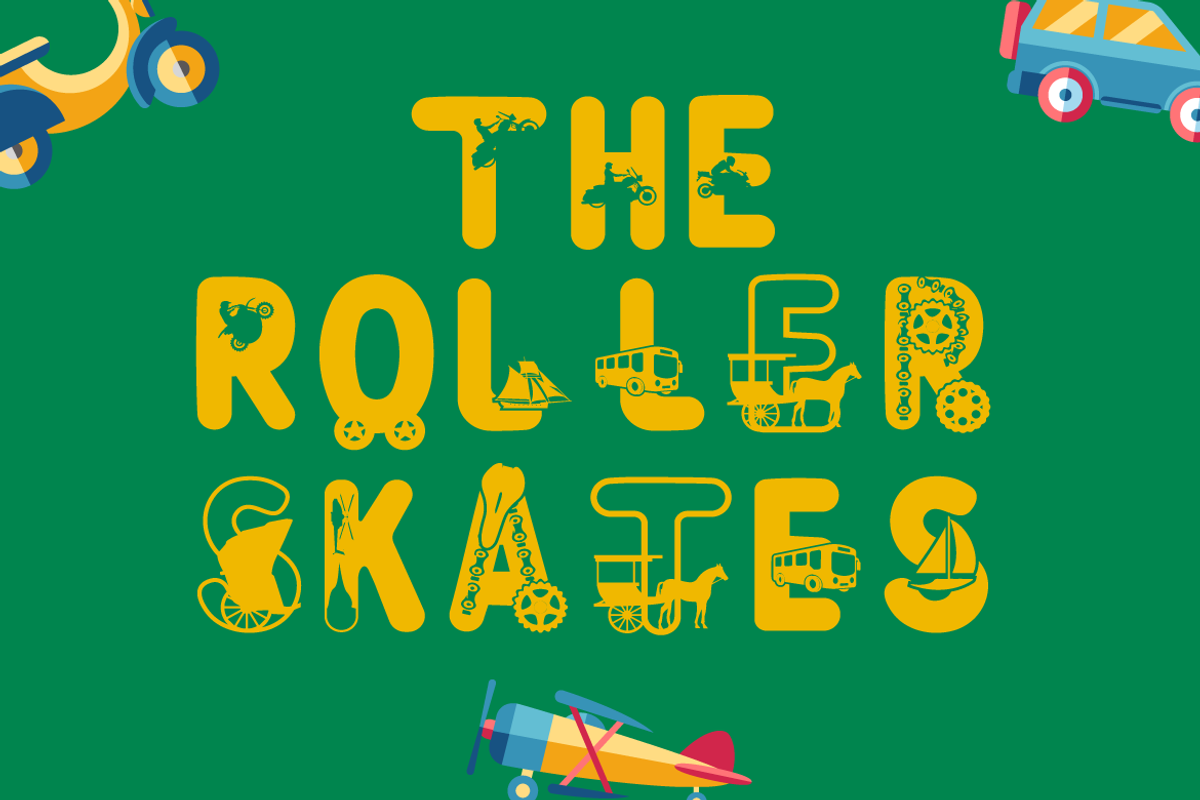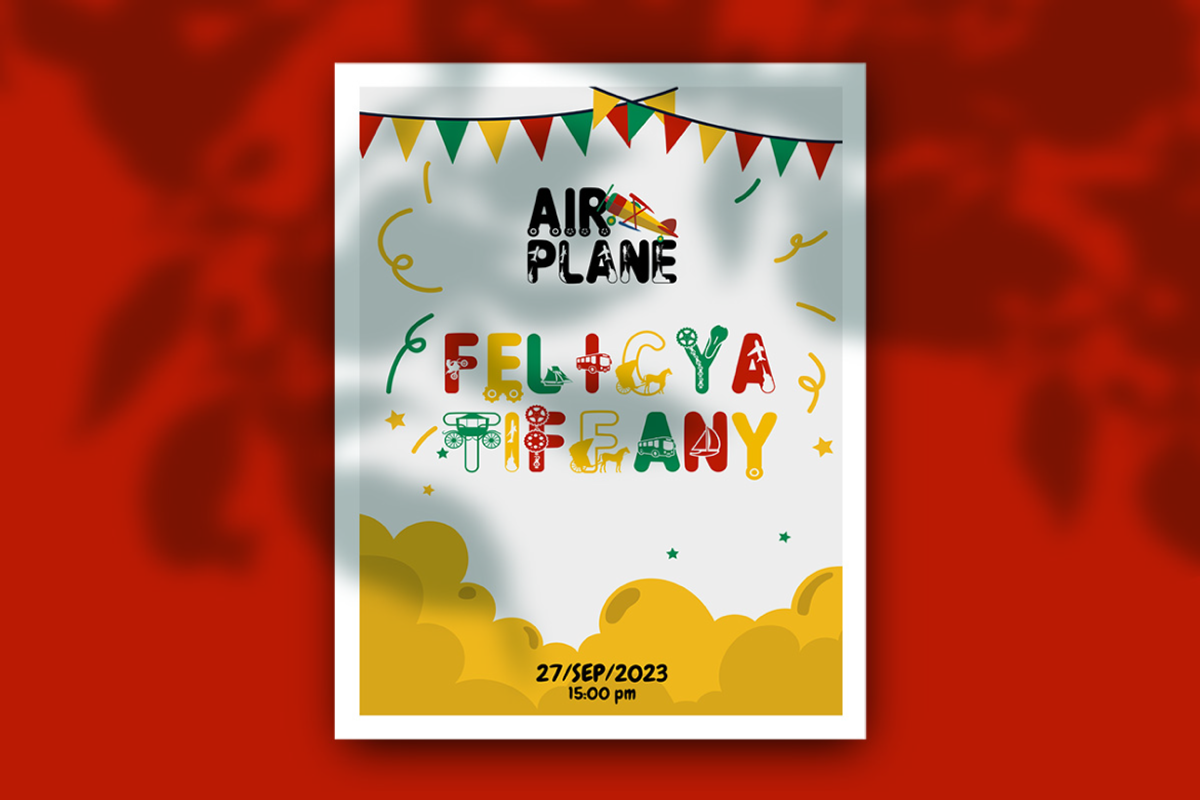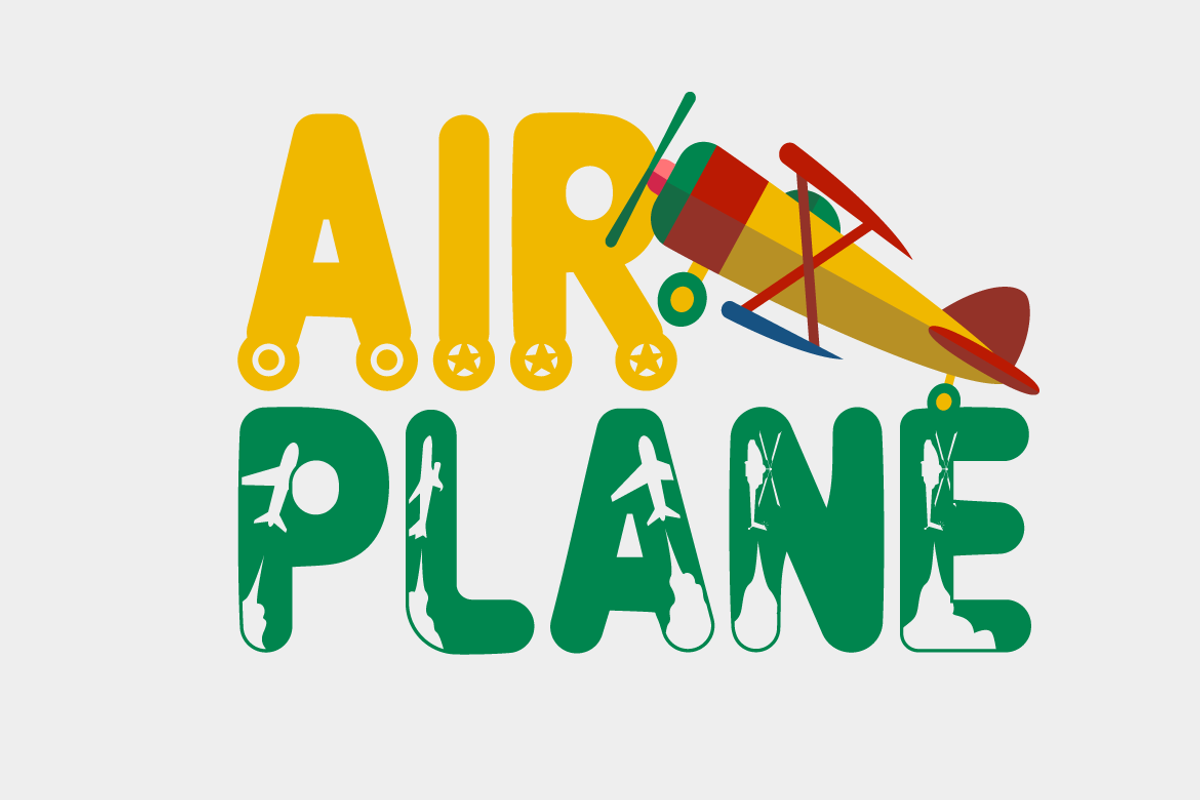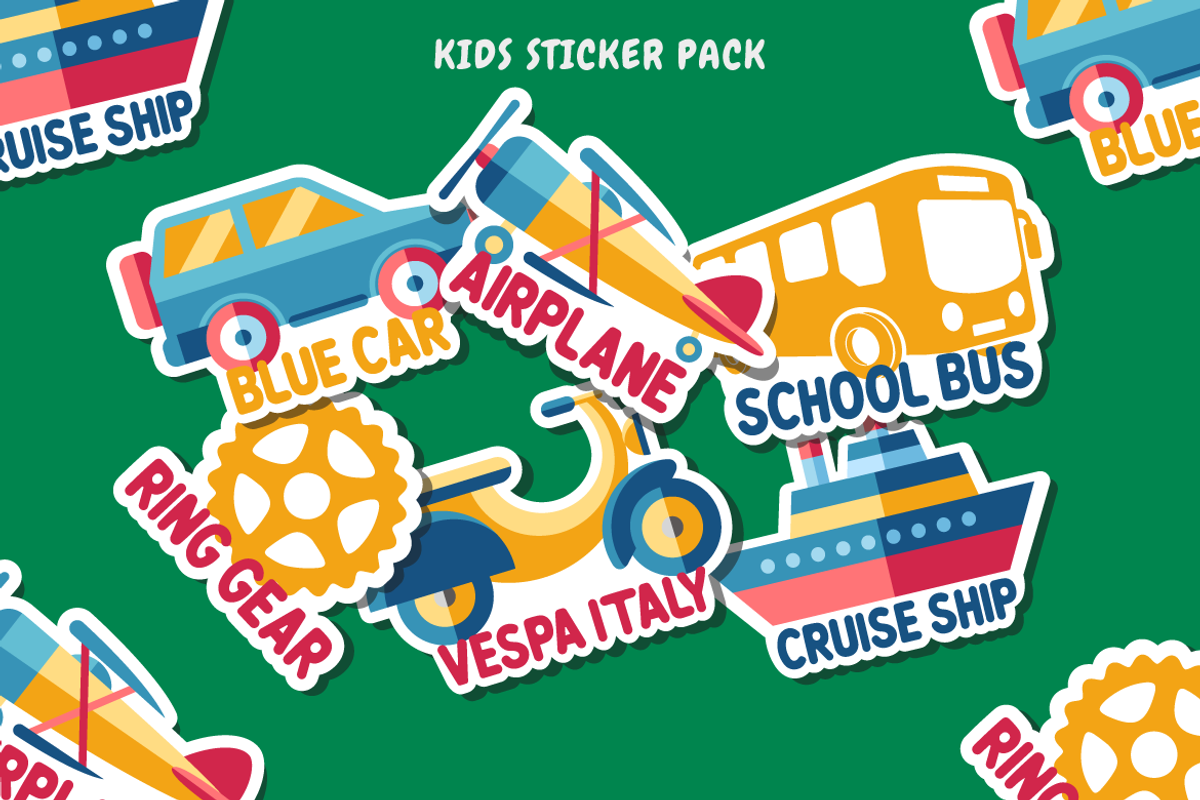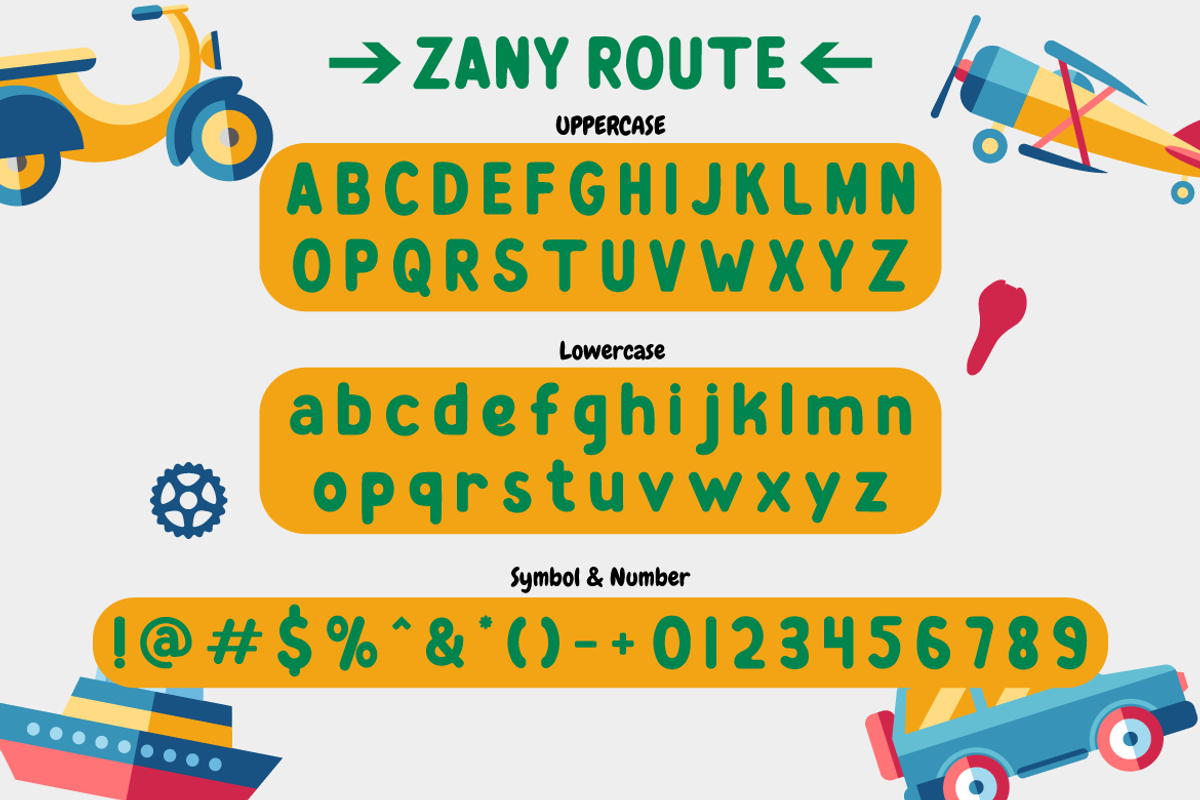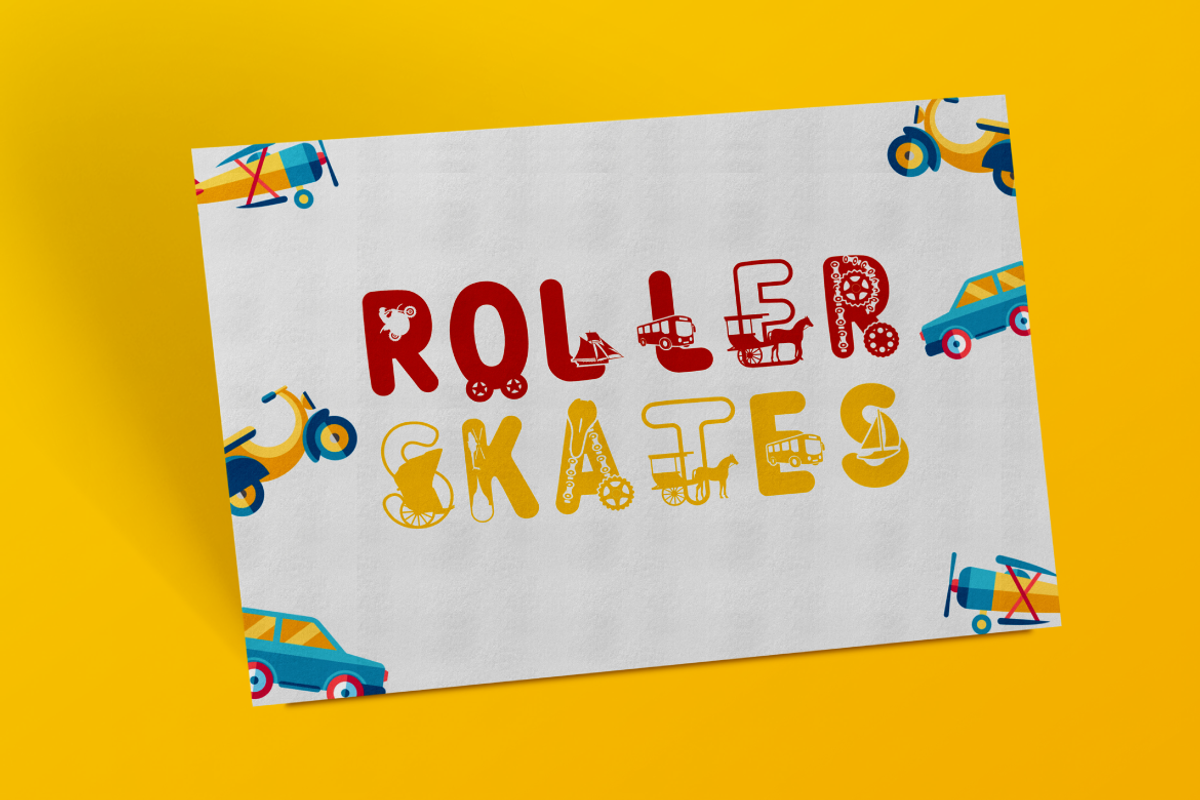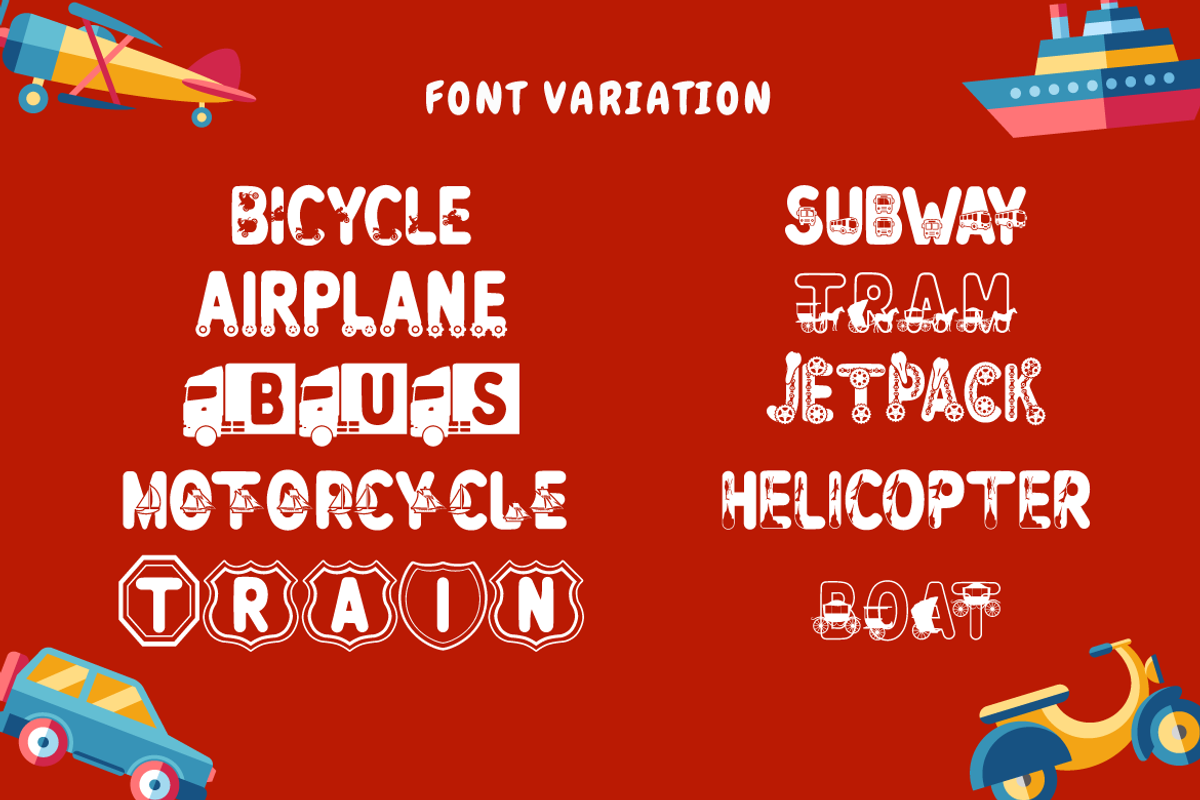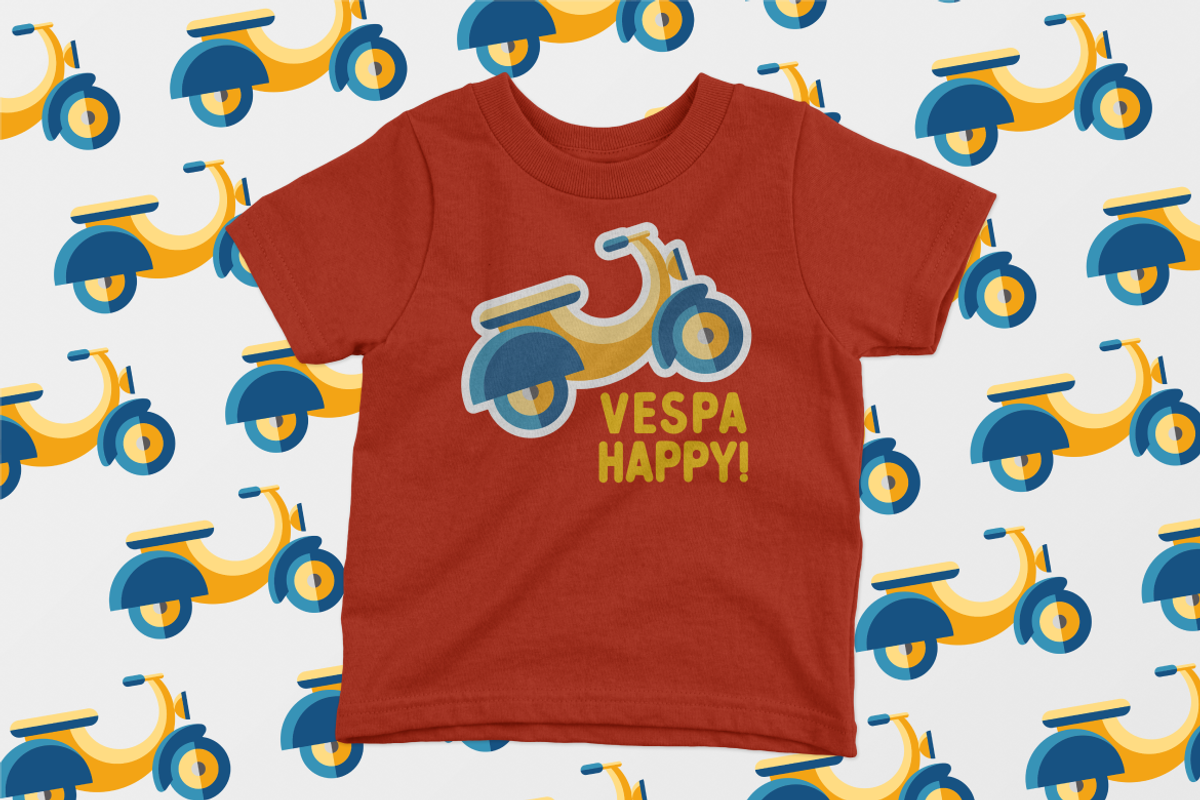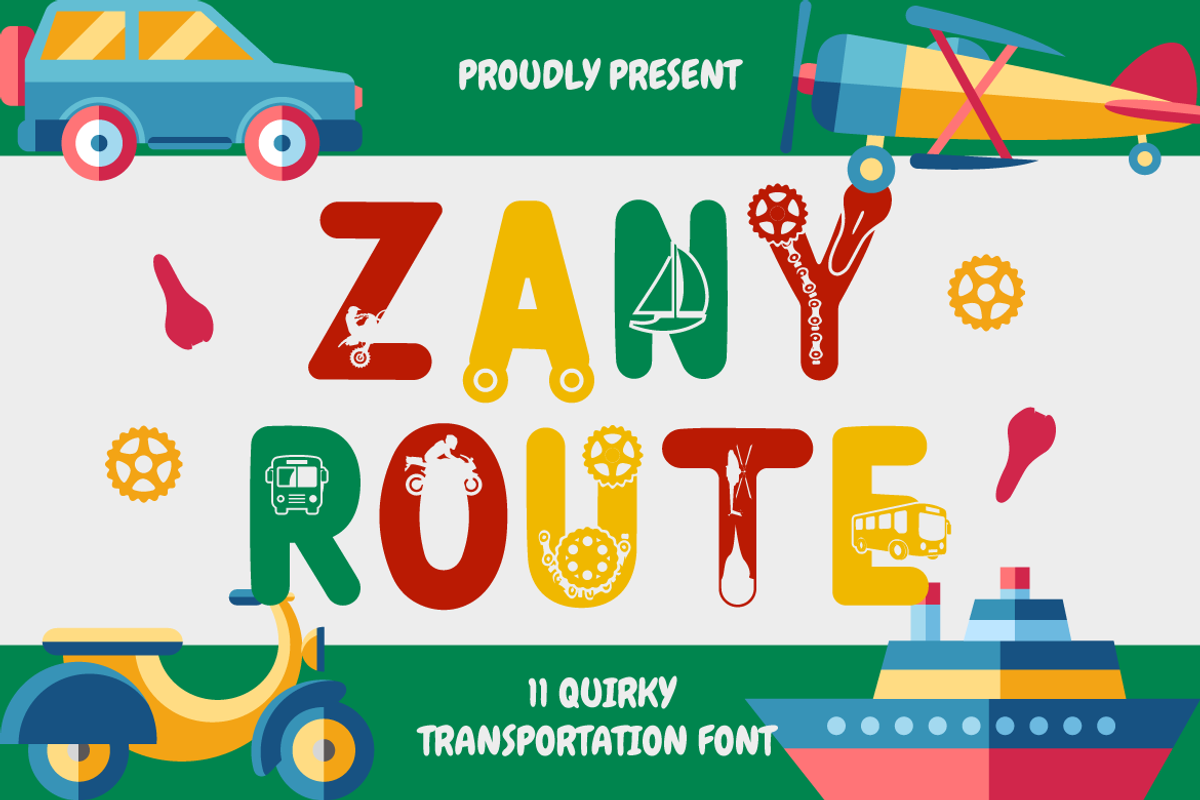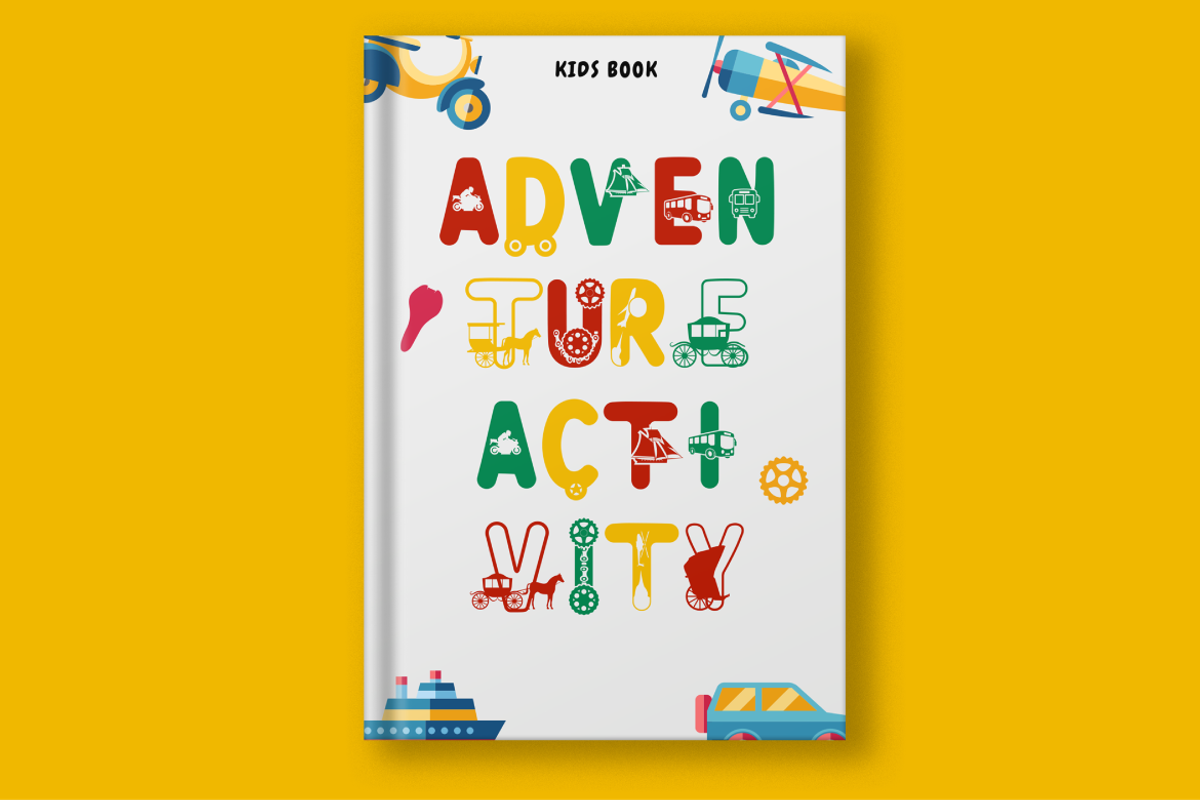
Zany Route – 11 Quirky Font
Zany Route - Your Road to Whimsical Transportation Fonts
Zany Route is a delightful and rounded typeface designed to rev up the fun in transportation-themed projects. With its playful and engaging style, it's the perfect addition to any creative project. Whether used on its own or combined with any of its eleven thematic variations, Zany Route is sure to transport your designs to a world of joy and adventure.
This font offers eleven distinct variations inspired by transportation, including planes, cars, gears, motorcycles, trucks, and more. It's the ideal choice for designs related to transportation, catering to children and crafters alike.
Zany Route is your ticket to logos, children's themes, crafting, invitations, packaging, posters, titles, businesses, greeting cards, stickers, children's books, magazines, and any designs connected to the world of transportation.
Choose Zany Route and embark on a whimsical journey.